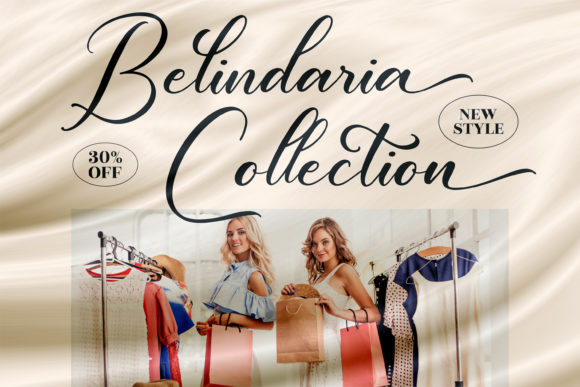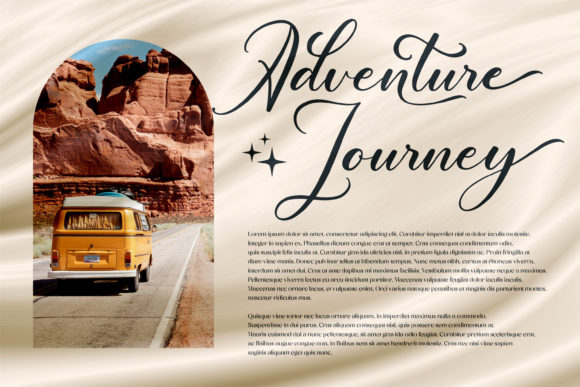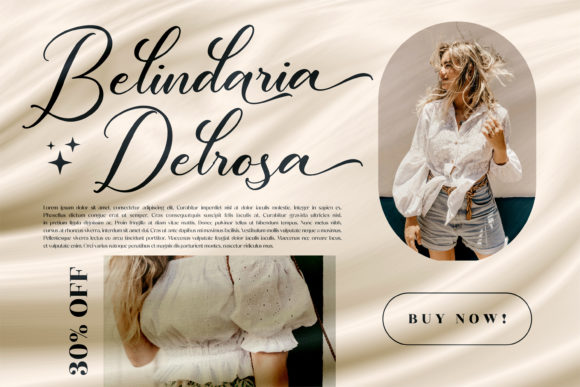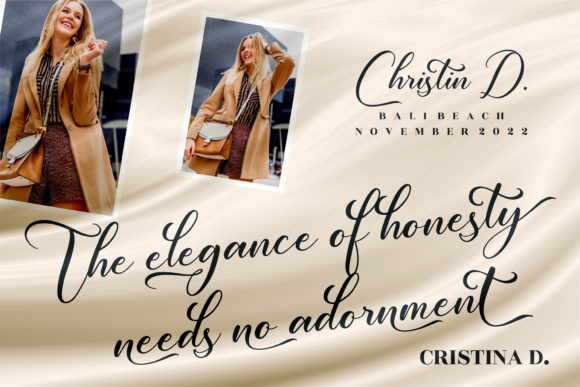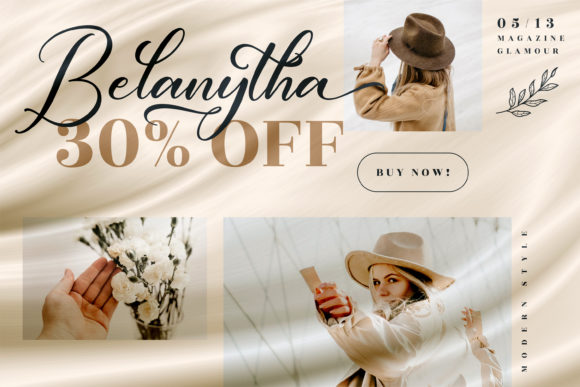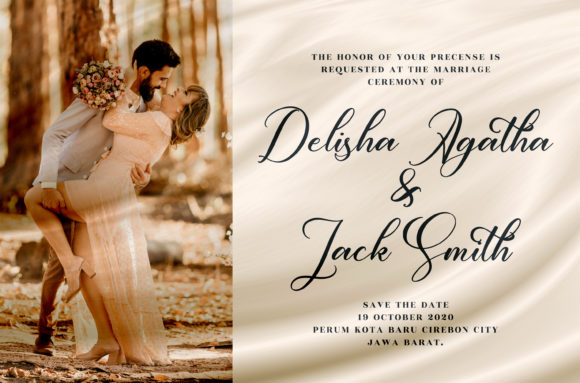
Introduction to Melintyca Font
Melintyca feels equally charming and elegant.
It looks stunning on wedding invitations, thank you cards, quotes, greeting cards, logos, business cards and every other design which needs a handwritten touch This font is PUA encoded which means you can access all of the glyphs and swashes with ease.